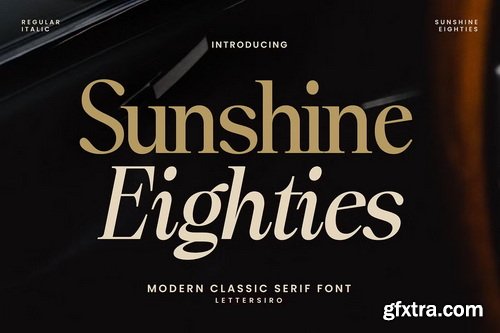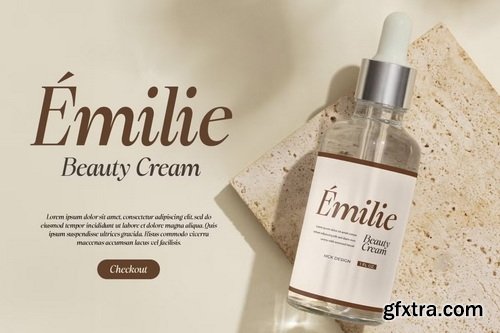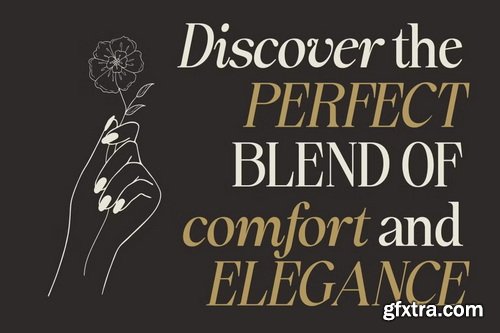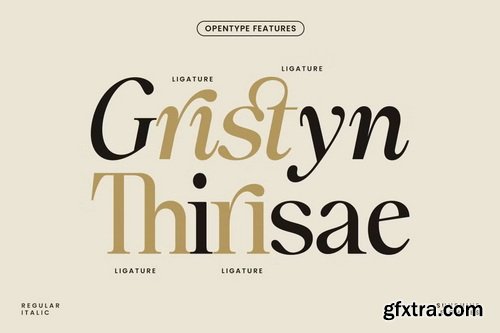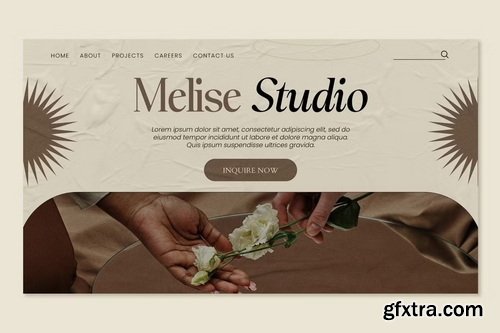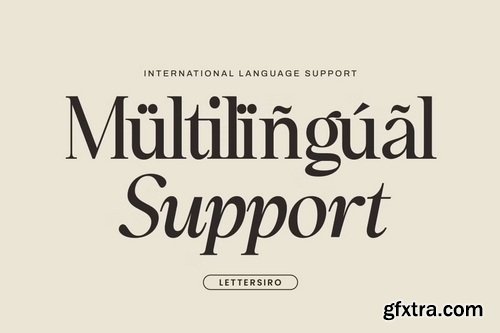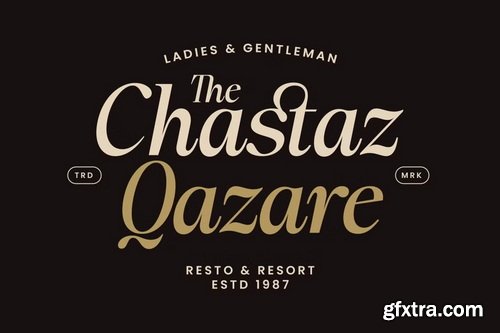
- Sunshine Eighties is a modern classic serif font that brings timeless elegance with a fresh, contemporary edge. Its smooth curves and high contrast strokes create a striking balance between sophistication and boldness—perfect for designs that demand presence and style.
- This typeface includes both Regular and Italic styles, offering flexibility for a wide range of design projects. Whether you're building a brand identity, crafting editorial layouts, or designing packaging, Sunshine Eighties delivers clarity, charm, and strong typographic character. Its letterforms are sharp, stylish, and designed to stand out across digital and print media.